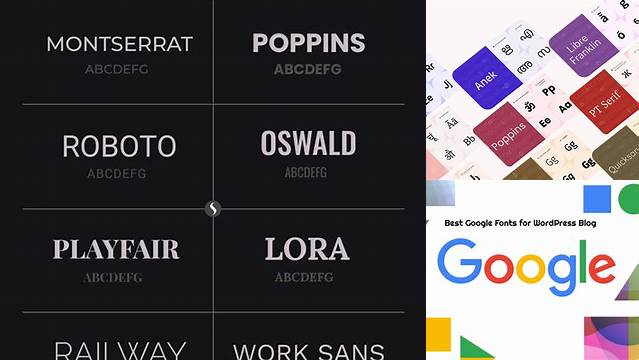
Latin Google Fonts: A Comprehensive Guide
Are you looking to elevate your website or design project with stunning typography? Latin Google Fonts offer a vast library of free, open-source fonts perfect for a multitude of applications. In this comprehensive guide, we'll delve into the world of Latin Google Fonts, exploring their benefits, how to use them, and showcasing some of the most popular and versatile options available. So, let's dive in and discover the perfect fonts to bring your creative visions to life!
What are Latin Google Fonts?
When we talk about Latin Google Fonts, we're referring to the collection of fonts within the Google Fonts library that support Latin-based scripts. This includes a wide array of languages, such as English, Spanish, French, German, and many more. The beauty of Google Fonts lies in their accessibility â they're free to use for both personal and commercial projects, making high-quality typography accessible to everyone. The fonts are designed by talented designers from around the globe, ensuring a diverse range of styles to suit any project. Google Fonts are also optimized for web use, meaning they load quickly and display consistently across different browsers and devices. This is a crucial factor for website performance and user experience. Choosing the right Latin Google Font can significantly impact the readability and overall aesthetic appeal of your content. It's not just about picking a font that looks pretty; it's about selecting a typeface that communicates your message effectively and aligns with your brand identity. From elegant serifs to modern sans-serifs, there's a Google Font to match every style and purpose. And with the vast selection available, you're sure to find the perfect font to make your project stand out.
Why Use Latin Google Fonts?
There are countless reasons to choose Latin Google Fonts for your projects. First and foremost, they are free. Yes, you heard that right! Access to a vast library of professionally designed fonts without any licensing fees is a huge advantage, especially for those on a budget. This opens up a world of possibilities for designers, developers, and anyone looking to enhance their projects with beautiful typography. Secondly, Latin Google Fonts are incredibly easy to use. Integrating them into your website or design software is a breeze, thanks to Google's user-friendly interface and clear instructions. Whether you're using HTML, CSS, or design tools like Adobe Photoshop or Illustrator, adding Google Fonts is a straightforward process. Another significant benefit is the sheer variety available. The Google Fonts library boasts hundreds of fonts, ranging from classic and traditional styles to modern and experimental designs. This means you're sure to find the perfect font to match your project's aesthetic and convey the right message. Beyond the variety, Latin Google Fonts are also optimized for web use. They are designed to load quickly, ensuring a smooth and seamless user experience. This is crucial for website performance, as slow-loading fonts can negatively impact your site's speed and bounce rate. Furthermore, Google Fonts are cross-browser compatible, meaning they will display correctly across different browsers and devices. This ensures consistency in your design, regardless of how your audience is viewing it. In conclusion, using Google Fonts is a smart choice for anyone seeking high-quality, accessible, and versatile typography solutions. The combination of cost-effectiveness, ease of use, vast selection, and web optimization makes them an invaluable resource for designers and developers alike.
How to Use Latin Google Fonts
Popular Latin Google Fonts
The world of Latin Google Fonts is vast and diverse, offering a plethora of options to suit any design aesthetic. Let's explore some of the most popular and versatile fonts that you can use in your projects. One perennial favorite is Roboto, a sans-serif font family designed by Christian Robertson. Roboto boasts a clean and modern look, making it an excellent choice for body text, headings, and UI elements. Its versatility and readability have made it a staple on countless websites and applications. Another widely used sans-serif font is Open Sans, designed by Steve Matteson. Open Sans is known for its neutral yet friendly appearance, making it highly legible in various sizes and contexts. It's a fantastic option for websites, print materials, and mobile applications. For those seeking a more classic and elegant look, Lato, designed by Ĺukasz Dziedzic, is a superb choice. Lato is a sans-serif typeface with semi-rounded details, giving it a warm and approachable feel. It's often used for headings, body text, and branding materials. If you're looking for a serif font with a modern twist, Montserrat, designed by Julieta Ulanovsky, is worth considering. Montserrat is inspired by the urban typography of Buenos Aires and features a geometric sans-serif design with a touch of vintage charm. It's an excellent option for headings, logos, and branding projects. Another popular serif font is Merriweather, designed by Sorkin Type. Merriweather is specifically designed for on-screen readability, making it an ideal choice for long-form content and blog posts. Its robust serifs and slightly condensed letterforms contribute to its excellent legibility. For a more playful and whimsical feel, Playfair Display, designed by Claus Eggers Sørensen, is a fantastic option. Playfair Display is a transitional serif typeface with high contrast and delicate details, making it perfect for headlines, titles, and display purposes. These are just a few examples of the many excellent Latin Google Fonts available. Each font has its unique characteristics and personality, so it's essential to experiment and find the ones that best suit your project's needs. Remember to consider factors such as readability, legibility, and overall aesthetic when selecting your fonts. With the right typography, you can elevate your design and create a lasting impression on your audience.
Tips for Choosing the Right Latin Google Font
Choosing the right Latin Google Font can make or break your design. It's not just about picking a font that looks nice; it's about selecting a typeface that effectively communicates your message and enhances the overall user experience. Here are some essential tips to guide you in your font selection process. First and foremost, consider your project's purpose and target audience. What kind of message are you trying to convey? Is your project formal or informal, modern or traditional? Different fonts evoke different emotions and associations, so it's crucial to choose one that aligns with your project's goals. A playful, handwritten font might be perfect for a children's website, but it would be inappropriate for a corporate presentation. Similarly, a formal serif font might be ideal for a legal document, but it could feel stuffy and outdated on a trendy blog. Secondly, prioritize readability and legibility. Readability refers to how easily readers can read blocks of text, while legibility refers to how easily readers can distinguish individual letters. A font might look beautiful, but if it's difficult to read, it will detract from your content. Opt for fonts with clear letterforms, adequate spacing, and sufficient contrast. Avoid overly decorative or stylized fonts for body text, as they can strain the eyes and make reading a chore. Stick to clean and legible fonts like Open Sans, Roboto, or Lato for long-form content. Thirdly, consider the font's personality and tone. Fonts have distinct personalities, ranging from friendly and approachable to serious and professional. Choose fonts that reflect your brand's identity and the overall tone of your project. If you want to convey trustworthiness and authority, a classic serif font like Merriweather might be a good choice. If you're aiming for a modern and minimalist aesthetic, a sans-serif font like Montserrat or Poppins could be a better fit. Fourthly, pay attention to font pairings. Combining different fonts can add visual interest and hierarchy to your design, but it's essential to do it thoughtfully. A good rule of thumb is to pair a serif font with a sans-serif font. For example, you might use a serif font for headings and a sans-serif font for body text. Avoid pairing fonts that are too similar, as this can create a jarring effect. Finally, test your fonts across different devices and browsers. What looks good on your computer might not look as good on a mobile device or in a different browser. Make sure your fonts are rendering correctly and are legible on various screen sizes and resolutions. By following these tips, you can choose the perfect Latin Google Font to elevate your design and communicate your message effectively.
Latin Google Fonts are a treasure trove of typographic possibilities, offering a vast selection of free, high-quality fonts for any project. Whether you're designing a website, creating marketing materials, or working on a personal project, Google Fonts provide the tools you need to express your creativity and communicate your message effectively. From classic serifs to modern sans-serifs, there's a Google Font to suit every style and purpose. By understanding the basics of typography and following the tips outlined in this guide, you can make informed decisions about font selection and create stunning designs that captivate your audience. So, go ahead and explore the world of Latin Google Fonts. Experiment with different typefaces, discover your favorites, and unleash your creative potential. With the right typography, you can transform your projects from ordinary to extraordinary. Remember, the power of a well-chosen font lies not just in its aesthetic appeal but in its ability to enhance readability, convey your brand's personality, and ultimately, communicate your message with clarity and impact. So, embrace the versatility of Latin Google Fonts and let your typography speak volumes!